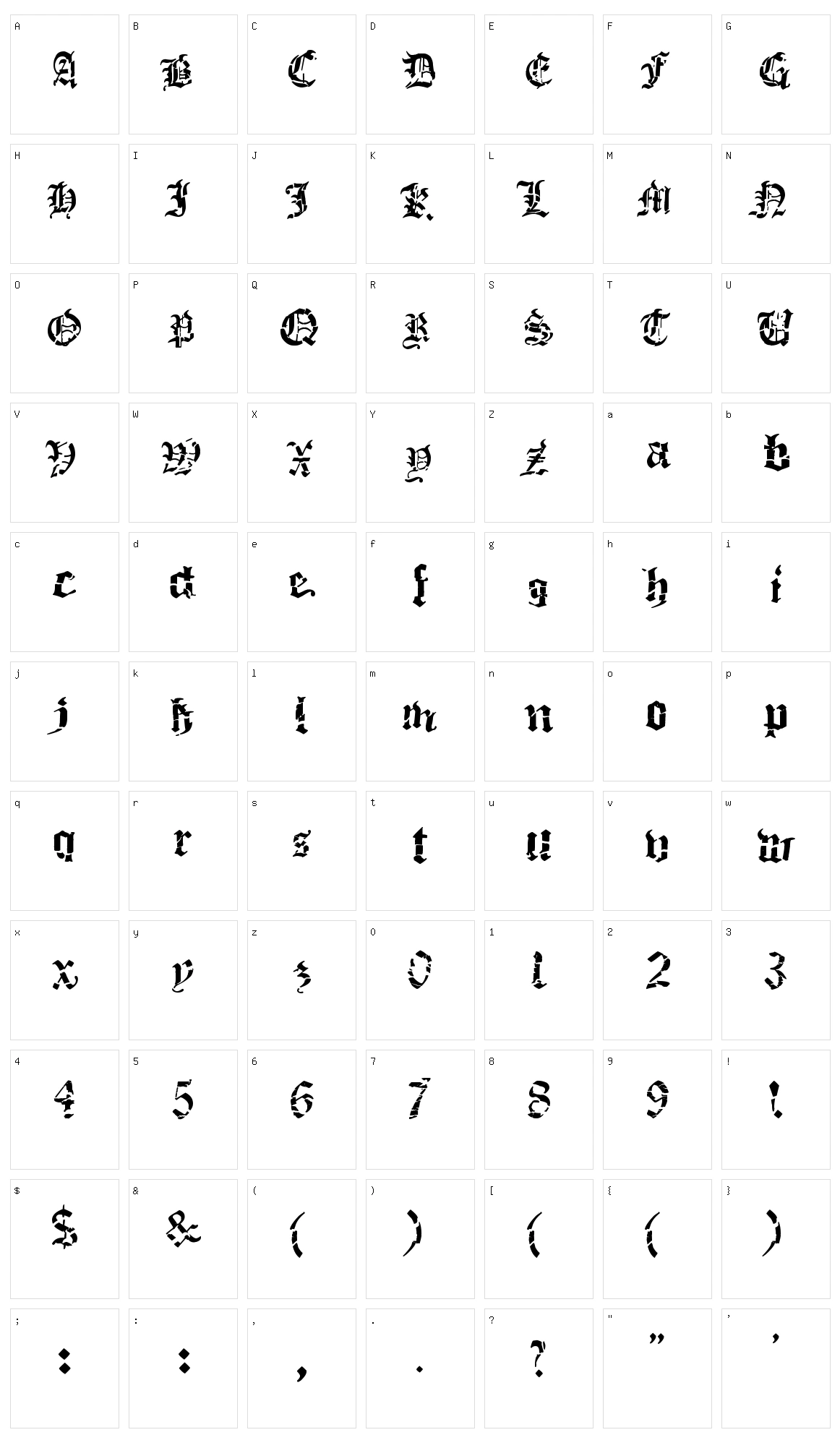
The free font Death Fucking Metal is carefully designed by Frank Hoffmaster, showcasing a thoughtful balance of creativity and usability and belongs to the Gothic font family. When you download the ZIP file, it contains only 51.63 KB of font files, making it lightweight and quick to download. Please review the license details below to understand permitted usage and distribution rights. If license information is not available, we recommend using this font for personal projects only or contacting the author directly for commercial usage permissions.